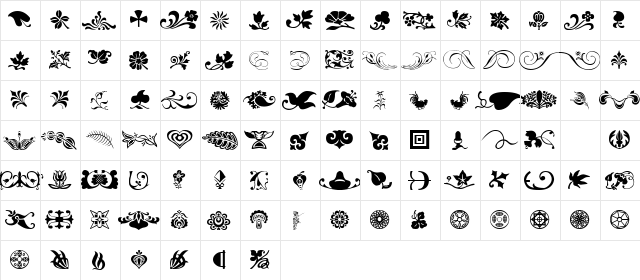
Alien Ornaments
Design Context for Alien Typeface
Alien is built around its visual character rather than neutral utility — its distinctive forms are designed to make an impression at display sizes.
Font Pairing: Pair with a clean neutral sans-serif for body copy to let Alien's character lead without overwhelming the composition.
Pro Tip: Treat Alien as the centrepiece of your typographic hierarchy. One strong heading set in a decorative face can carry an entire layout.